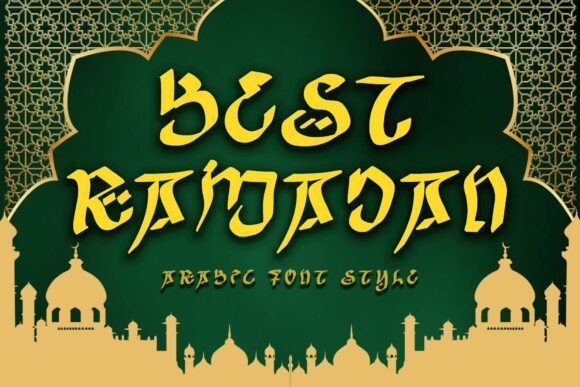
Introduction to Best Ramadan Font
β€œBest Ramadan” is a very elegant and unique Arabic style font.
This font is equipped with uppercase, lowercase, numeral, punctuations and multilingual support Very suitable for Ramadan moments, movie titles, book titles, logos, stickers, posters, prints, branding, invitations, Ramadan greetings and others.